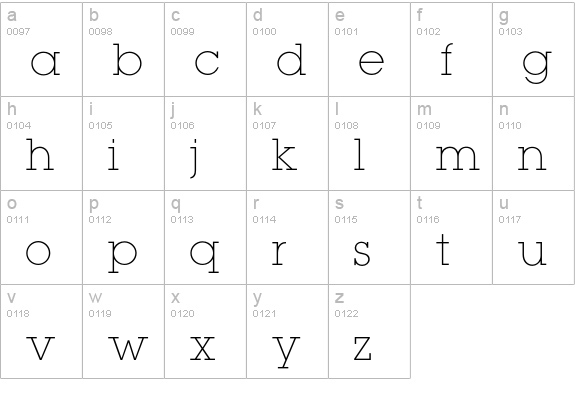
LubalinXLight Font Details
LubalinXLight font is a sophisticated and elegant typeface that exudes a sense of modernity and style. Its sleek and clean lines make it perfect for a wide range of design projects, from branding to editorial design. The graceful curves and sharp angles of this font give it a unique and eye-catching look that is sure to capture attention. What sets LubalinXLight font apart is its versatility and adaptability. Whether used for headlines, body text, or even as a display font, it always manages to make a statement. The light weight of the font adds a touch of delicacy and refinement to any design, making it perfect for projects that require a subtle and sophisticated touch. Best of all, LubalinXLight font is completely free to download at FontsMarket.com. This means that you can incorporate this stunning typeface into your projects without any cost, making it an invaluable resource for designers and creatives looking to elevate their work. So go ahead and download LubalinXLight font today to add a touch of elegance and style to your designs!